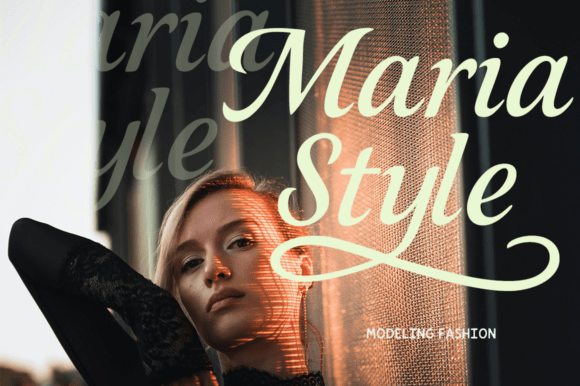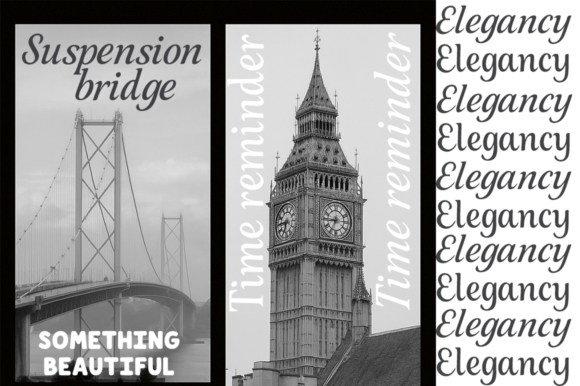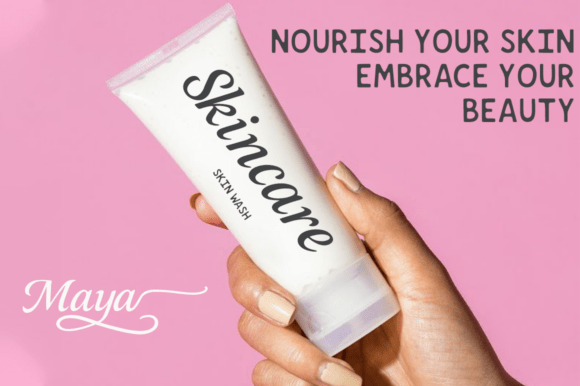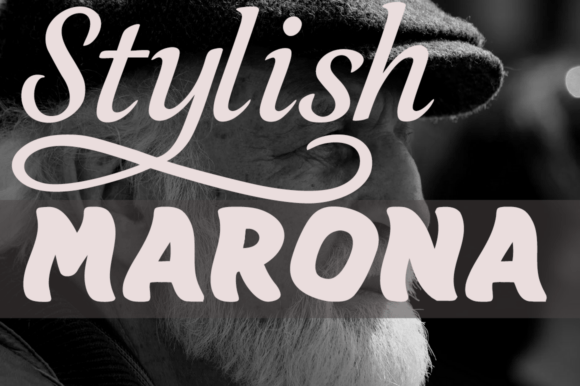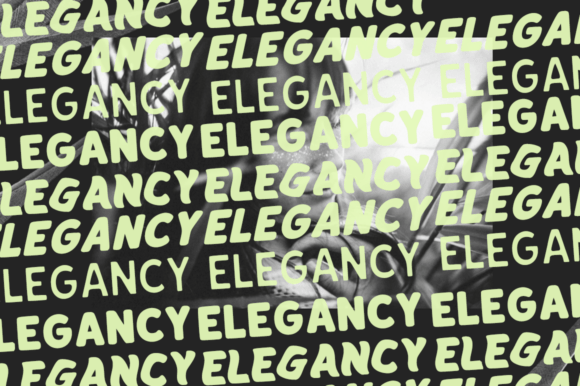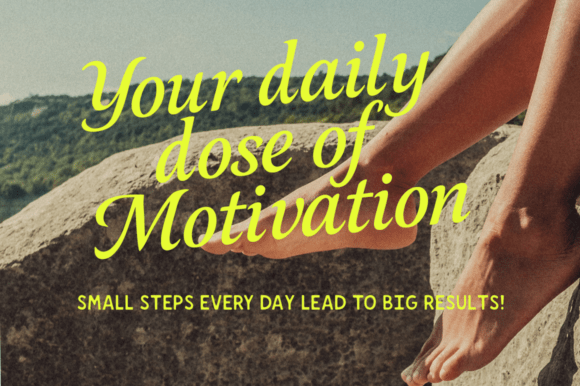
Discovering the Perfect Balance: Introducing Elegancy Font
Have you ever stared at a blank canvas, trying to find the perfect combination of words to convey your message? That’s exactly where I was when I first stumbled upon the Elegancy Font – a match made in heaven between elegant script and bold sans serif.
With its versatile range of styles and typographic nuances, Elegancy Font is more than just a font – it’s a tool for designers to elevate their work. Whether you’re creating a luxury brand, designing product packaging, or crafting social media posts, Elegancy Font brings an air of sophistication and professionalism to your designs. Its precision-crafted characters add depth and character, making it the perfect solution for designers seeking a more polished aesthetic.
- Font Family: Elegancy Font is a unique, high-end font family designed for luxury and elegance.
- Language Support: Supports over 200 languages, including Latin, Cyrillic, Greek, and many more, making it a versatile font for global applications.
- Unique Characteristics: Features elegant, flowing lines, and subtle flourishes, giving it a sophisticated and luxurious feel.
Elegancy Font Review
I’ve had the chance to work with the Elegancy Font, and I must say it’s been an interesting experience. Let’s break it down.
- Beautifully crafted letterforms that exude sophistication and refinement.
- Excellent legibility, making it perfect for body text and headlines.
- A wide range of language support, including Latin, Cyrillic, and Greek scripts.
- Works well in both digital and print applications.
- Limited character set, which may not be suitable for projects requiring a wide range of special characters.
- Some characters may not be ideal for display use, particularly at smaller font sizes.
- No OpenType features, which may limit its use in more complex typography applications.
Overall, I’d say the Elegancy Font is a solid choice for projects that require a touch of elegance and sophistication. While it may have some limitations, its beautiful letterforms and excellent legibility make it a great option for body text and headlines. Just be mindful of its limitations when working with special characters or more complex typography applications.
Use Elegancy Font for:
- Formal business presentations.
- High-end branding and marketing materials.
Remember to pair Elegancy Font with a clean and simple design to maximize its elegant effect.
Alternatives to Elegancy Font for Designers
Playfair Display is a luxurious and elegant serif font ideal for high-end branding, invitations, and luxury products. It features intricate details and a touch of sophistication.
Compared to Elegancy Font, Playfair Display is more ornate and luxurious, making it perfect for high-end designs. It’s also more versatile and can be used in various contexts, from body text to headings.
Didot
Didot is a classic and sophisticated serif font suitable for luxury brands, high-end fashion, and fine dining. It exudes elegance and refinement, making it perfect for designs that require a touch of sophistication.
Compared to Elegancy Font, Didot is more refined and subtle, making it ideal for designs that require a more understated elegance. It’s also more versatile and can be used in various contexts, from body text to headings.
Bodoni
Bodoni is a classic and elegant serif font ideal for luxury brands, high-end fashion, and fine dining. It features a touch of sophistication and refinement, making it perfect for designs that require a high level of elegance.
Compared to Elegancy Font, Bodoni is more classic and timeless, making it perfect for designs that require a touch of tradition and sophistication. It’s also more versatile and can be used in various contexts, from body text to headings.
Q: What is the recommended line spacing for body text in Elegancy Font?
The recommended line spacing for body text in Elegancy Font is 120-150% of the font size. This will help maintain readability and prevent text from becoming too crowded.